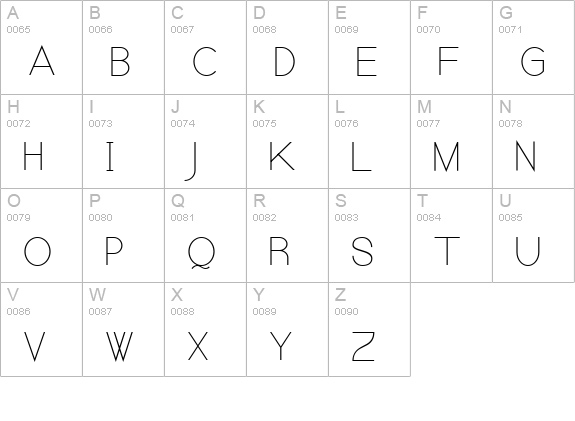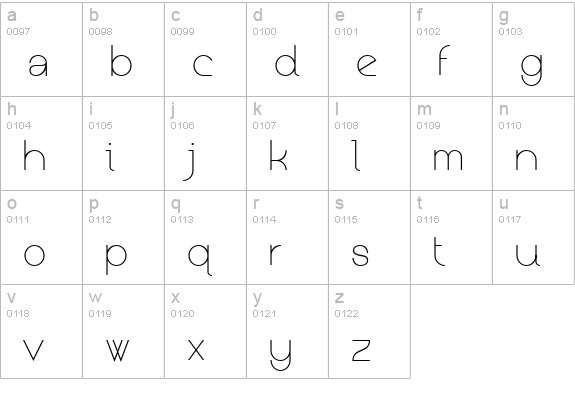
Kerater UltraLight Font Details
Kerater UltraLight is an airy, ultra-refined variant in the Kerater typeface family \xE2\x80\x94 well suited to minimalist headlines and refined display use.
Introducing Kerater UltraLight, a stunning and versatile font that effortlessly combines elegance with modernity. This font is the epitome of sophistication, with its sleek lines and delicate curves that will add a touch of refinement to any design project. Kerater UltraLight is the perfect choice for those seeking a font that exudes grace and finesse. Its ultra-lightweight design creates an ethereal and airy feel, making it ideal for a wide range of applications, from branding and advertising to packaging and editorial design. Whether you're creating a logo for a high-end fashion brand or designing an elegant wedding invitation, Kerater UltraLight will elevate your project to new heights. One of the most remarkable aspects of Kerater UltraLight is its versatility. It effortlessly adapts to any context, making it suitable for both headlines and body text. Its legibility remains impeccable even at smaller sizes, ensuring that your message is conveyed with clarity and style. And the best part? Kerater UltraLight is completely free! Yes, you read that right. This exceptional font is freely available to download at FontsMarket.com. Now you can add a touch of sophistication to your designs without breaking the bank. Don't miss out on the opportunity to enhance your creative projects with Kerater UltraLight. Download it today from FontsMarket.com and let its elegance and versatility inspire your next design masterpiece.